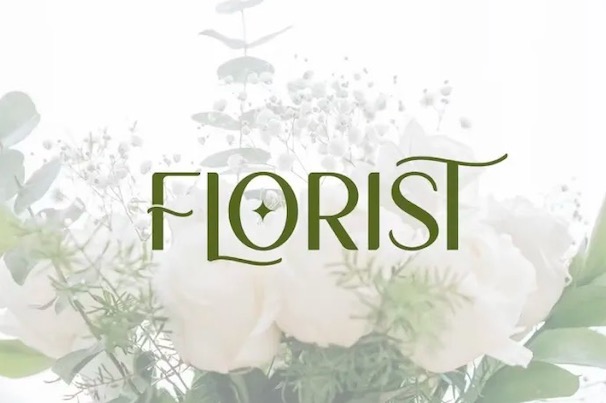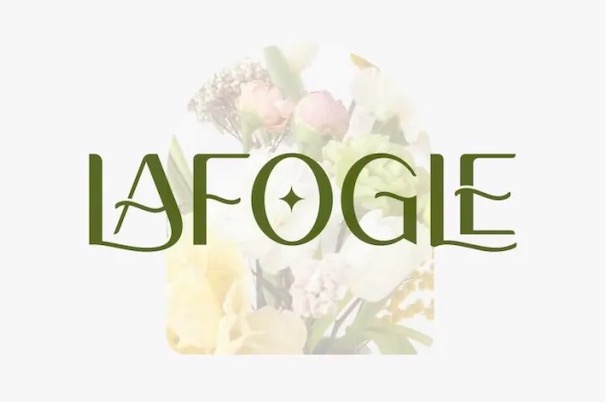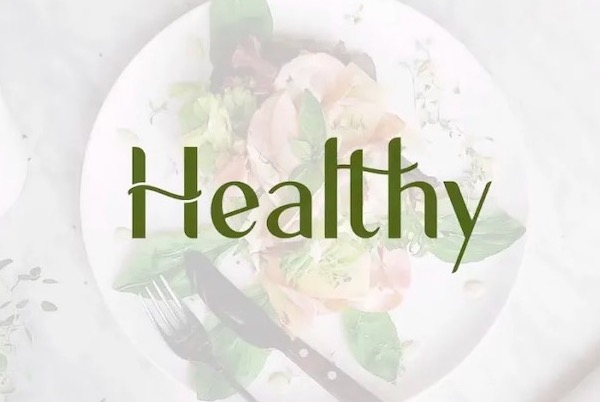
Lafogle is a new fresh display font along with a particular look. This modern font is perfect for a design that makes it more attractive and playful. It is ready with its unique style, it’s an ideal type for display, game titles, text, print, branding, signage as well as for user interfaces, mobile devices, especially web design creation, with the optimal set of characters for your designs in any layout.
Lafogle Display Font